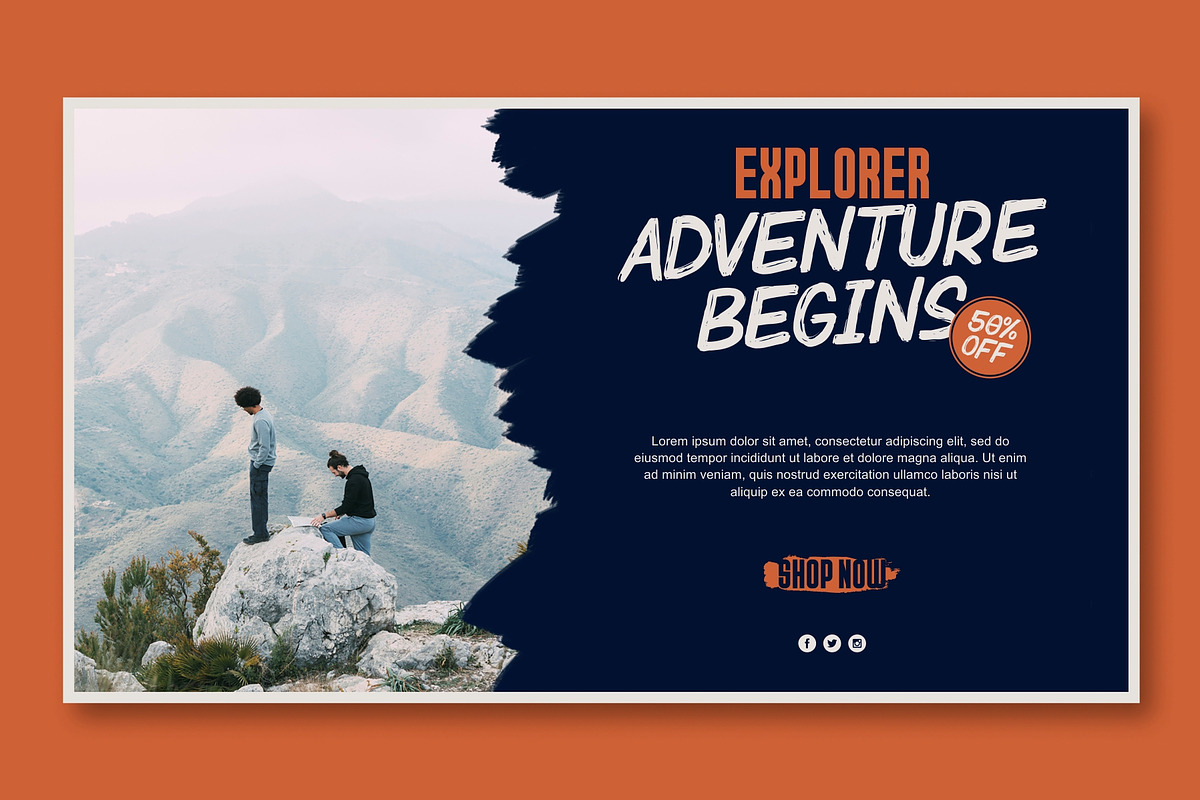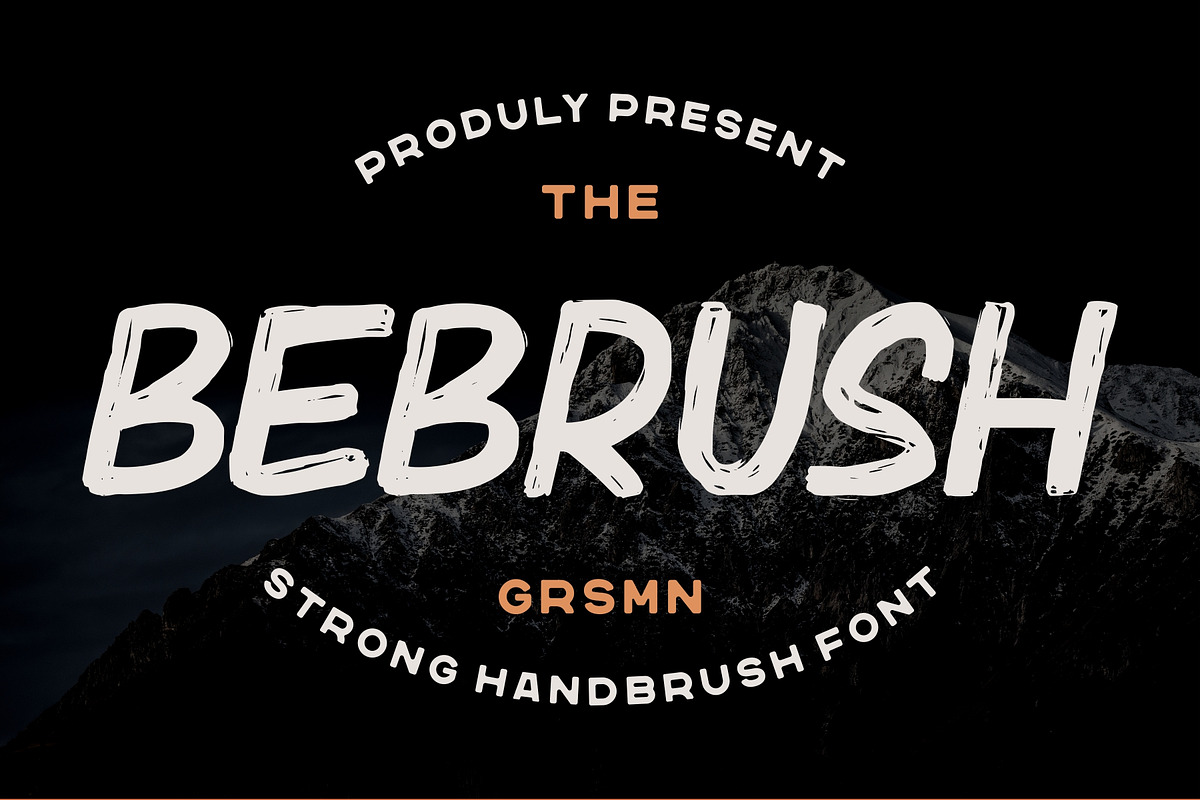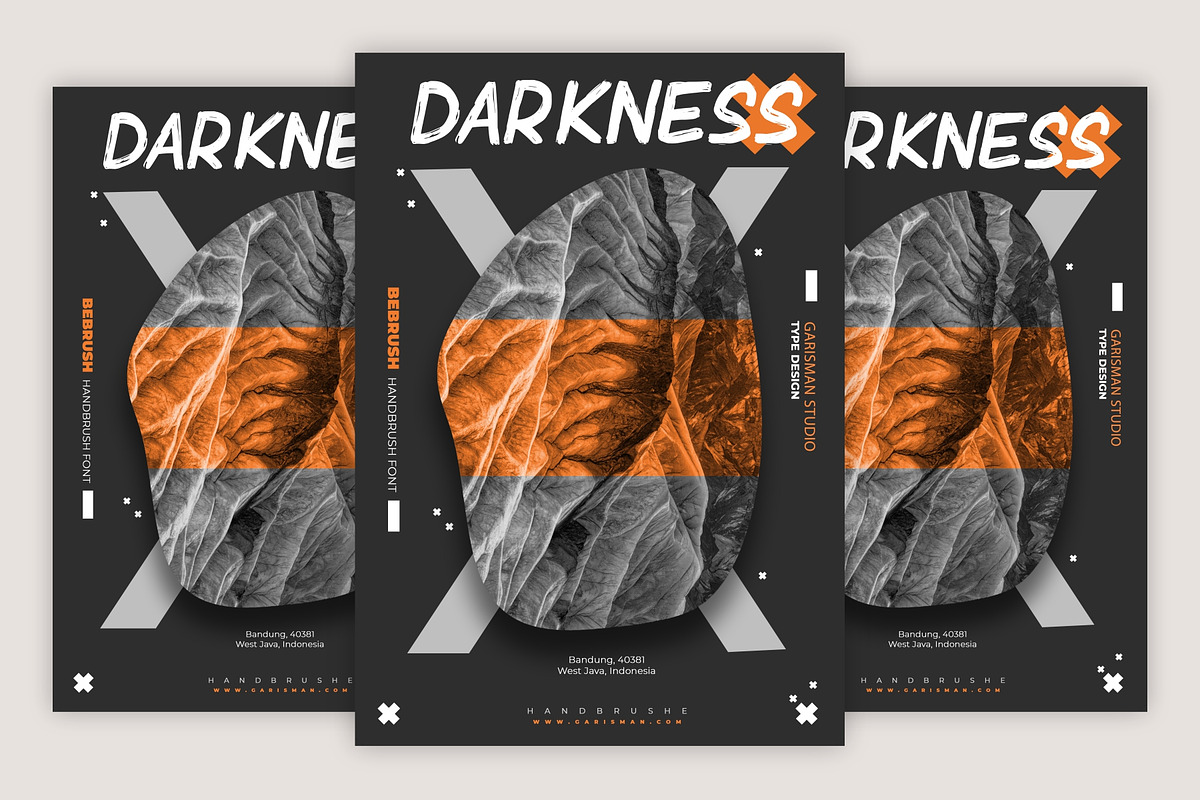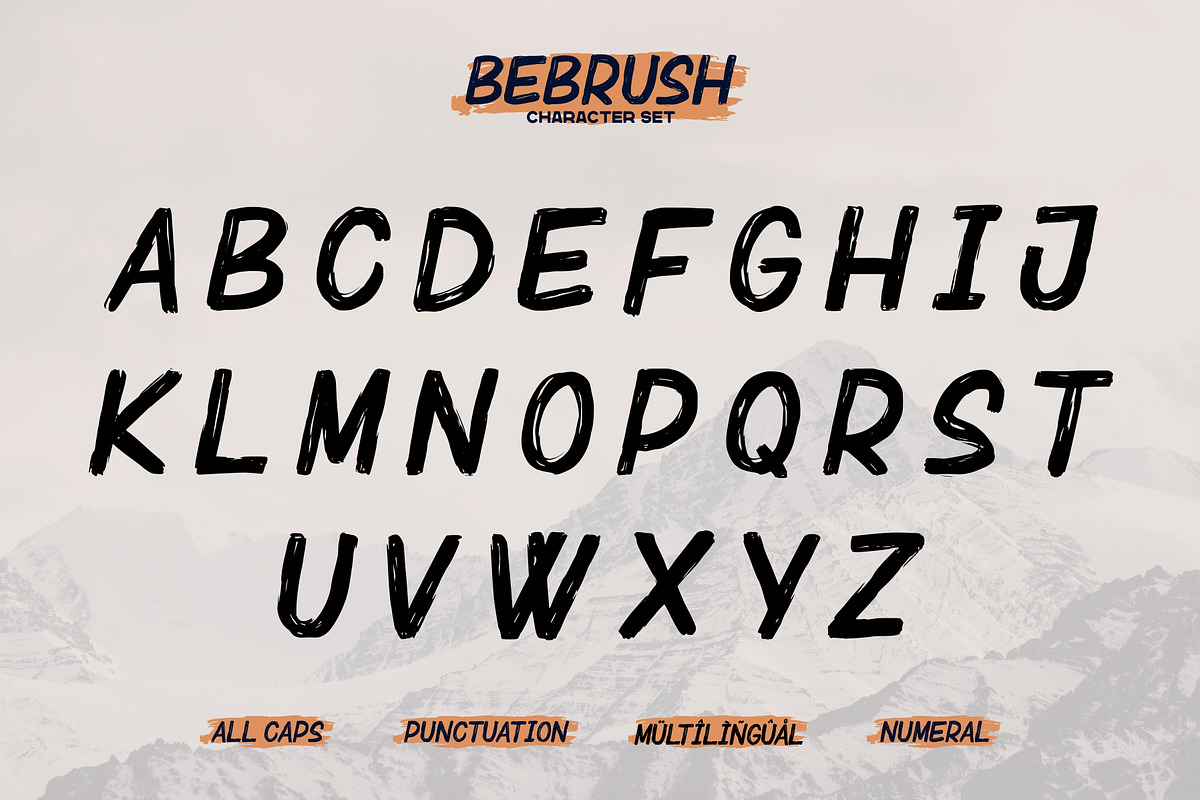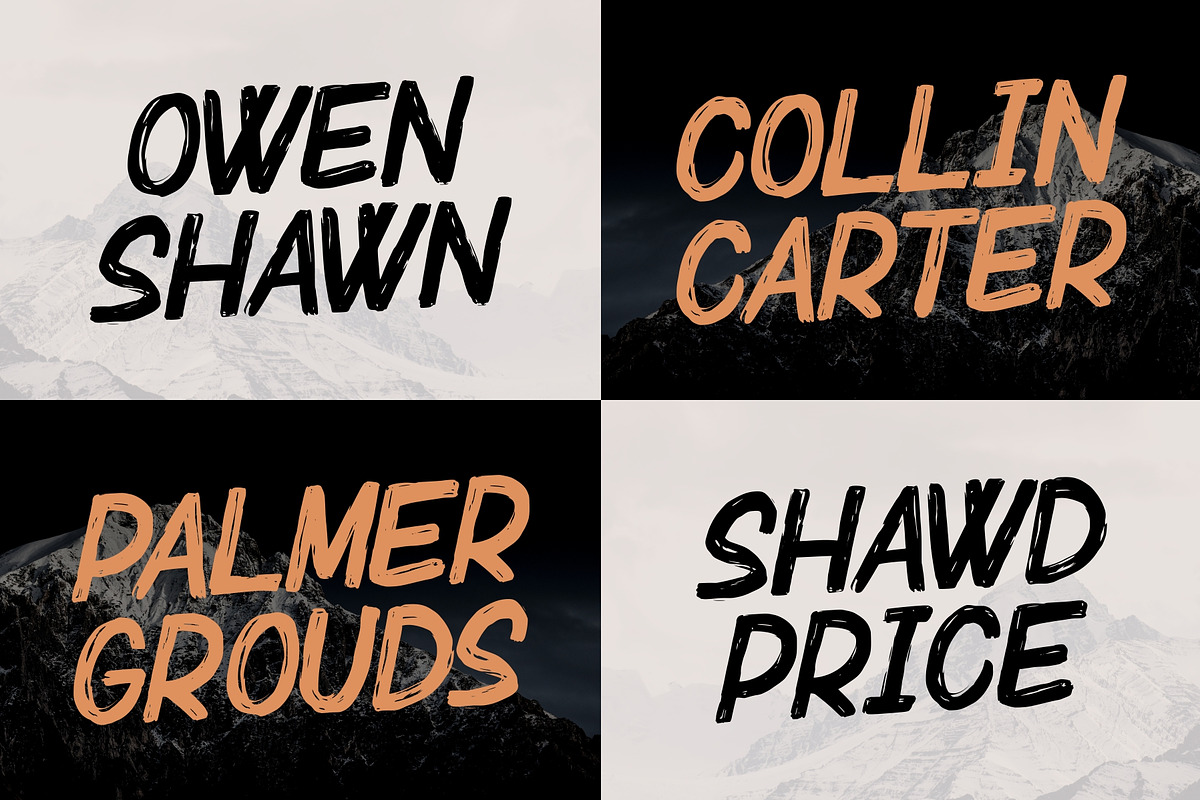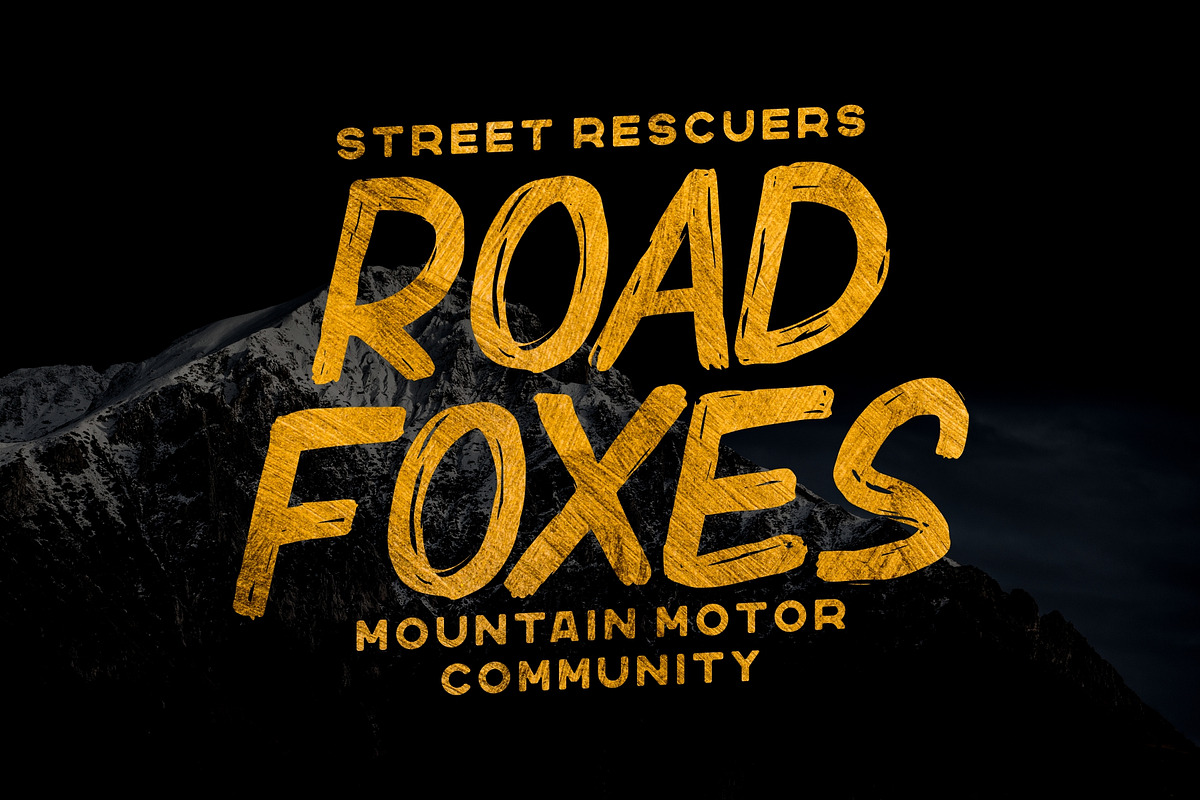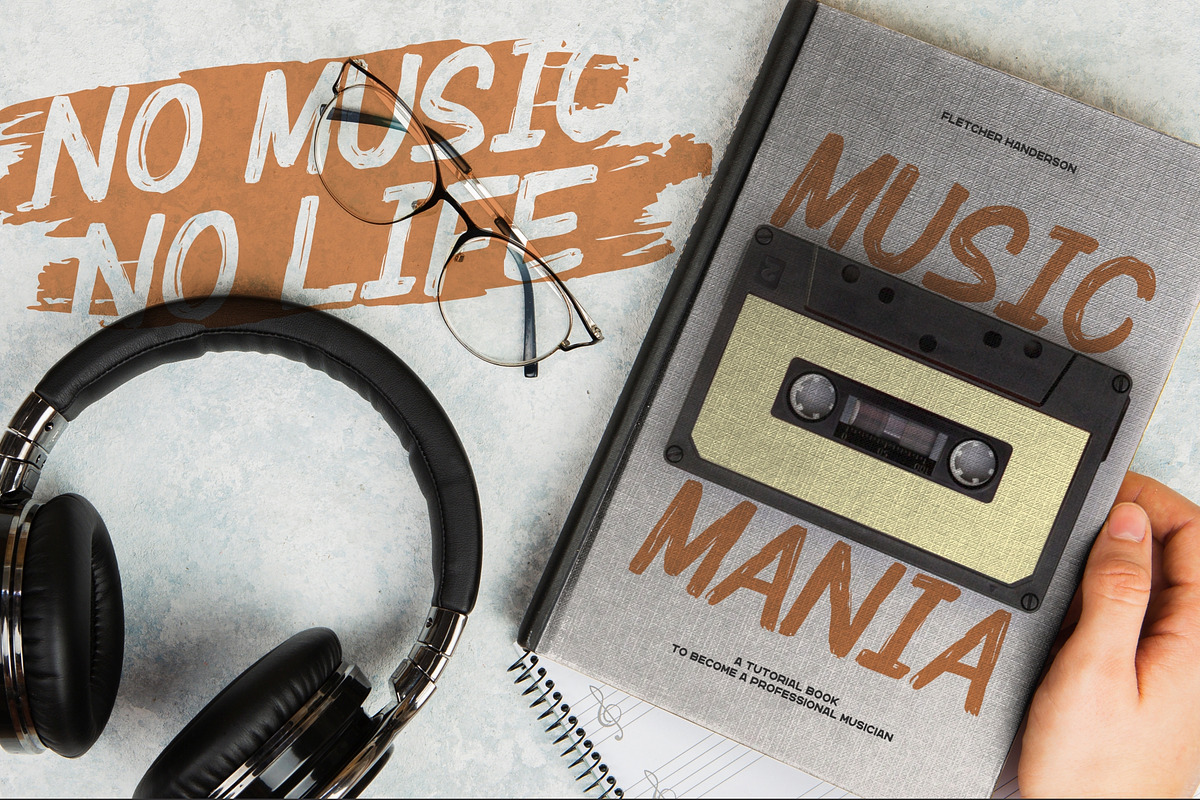
Bebrush - Handbrushed Font
Introducing Bebrush - Hand brushed Font
Bebrush - Hand brushed Font combines attractive curves with a fresh urban edge; delivering a stylish brush that is guaranteed to add an eye-catching appeal to your logo designs, brand imagery, handwritten quotes, product packaging, merchandise, social media post, or website font.
- Versatile for branding, headline, or printing product
- Detailed dry brush
- Multilingual Accent